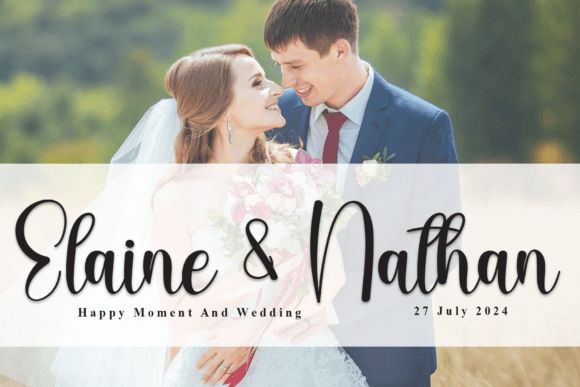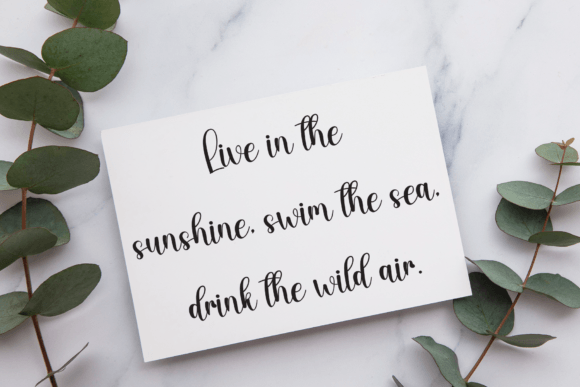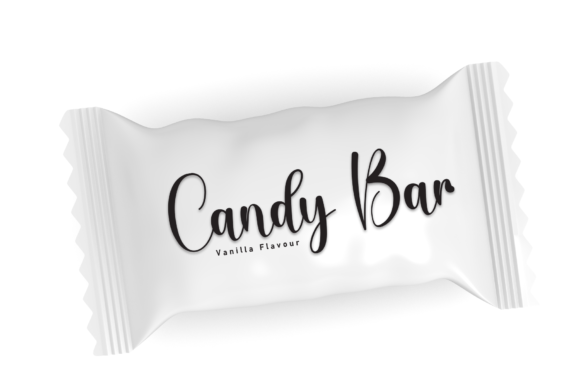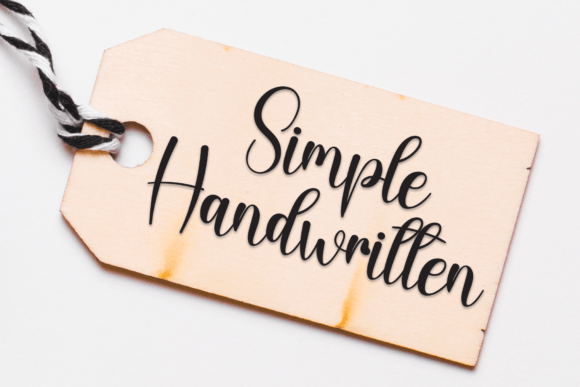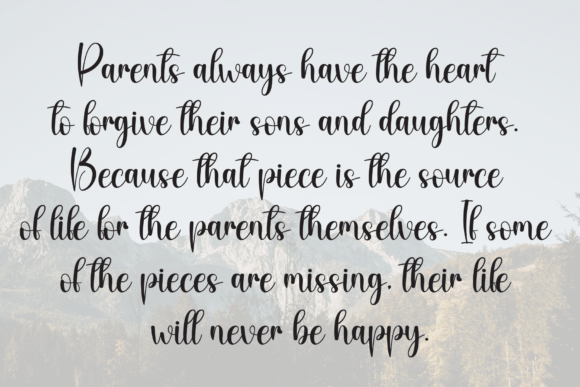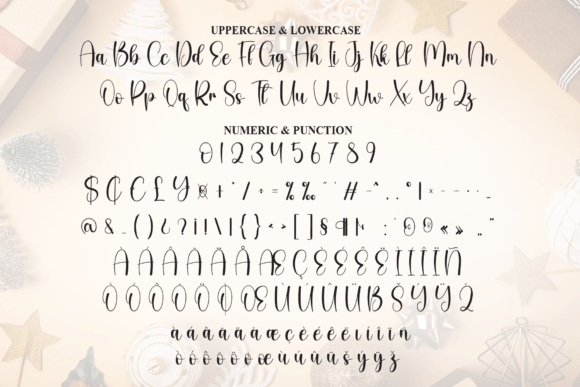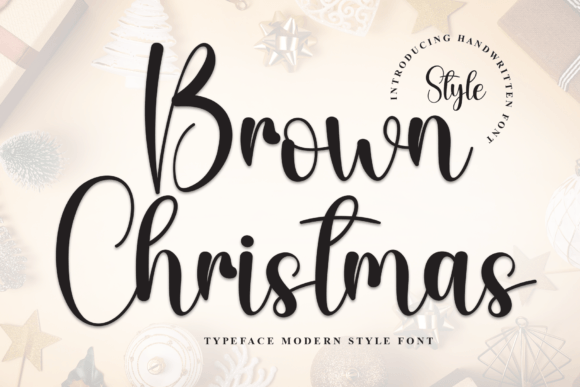
The Magic of Brown Christmas Font: Elevate Your Designs with Elegance
I’ll never forget the design project that led me to discover the Brown Christmas font. I was working on a custom wedding invitation for a client who wanted something elegant and sophisticated. As I scrolled through font after font, nothing seemed quite right – until I stumbled upon Brown Christmas. Its flowing, handwritten script curves instantly caught my eye, and I knew I had found the perfect fit. In this article, I’ll share my experience with this beautiful font, its features, and how to make the most of it in your designs.
An Honest Review of Brown Christmas Font
• ✨ Elegant and charming: Brown Christmas exudes sophistication with its delicate strokes and flowing curves.
• ✅ Versatile: Perfect for invitations, logos, branding, and more – it adds a personal touch to any design.
• 🌟 Easy to read: Despite its elegant nature, the font remains clear and readable, even at smaller sizes.
While Brown Christmas is an amazing font, there are a few things to keep in mind:
• ⚠️ Limited use in very large or very small sizes: While it looks stunning in most sizes, it may lose some of its elegance when used in extremely large or small sizes.
• 🤔 May not be suitable for very formal designs: While elegant, Brown Christmas has a slightly whimsical feel that might not fit every formal design project.
4. Experiment with OpenType features like ligatures and stylistic alternates to add more flair to your design.
The Backstory of Brown Christmas Font
While the actual origins of Brown Christmas might be a mystery, it’s easy to imagine a designer sitting by the fireplace, crafting a font that embodies the warmth and elegance of the holiday season. Perhaps they wanted to create a font that would make designs feel more personal and inviting. Whatever the inspiration, Brown Christmas certainly delivers.
Can I use Brown Christmas for my branding? Absolutely! Brown Christmas is perfect for adding a personal and sophisticated touch to your branding.
Does Brown Christmas support OpenType features? Yes, Brown Christmas supports OpenType features like ligatures and stylistic alternates, which can add more creativity to your designs.
Is Brown Christmas easy to read? Yes, despite its elegant nature, Brown Christmas remains clear and readable, even at smaller sizes.